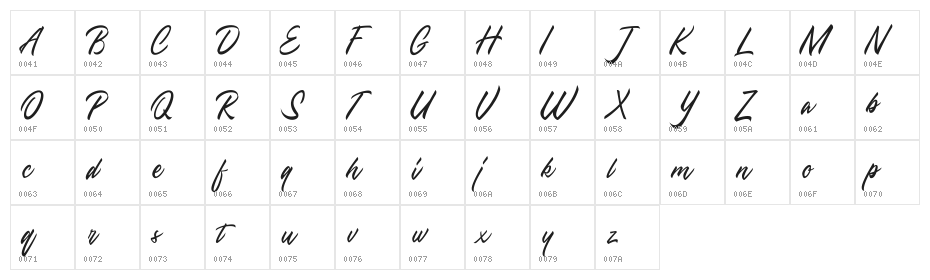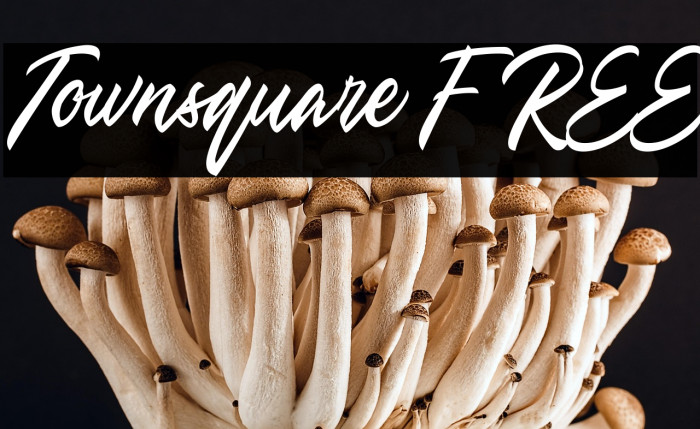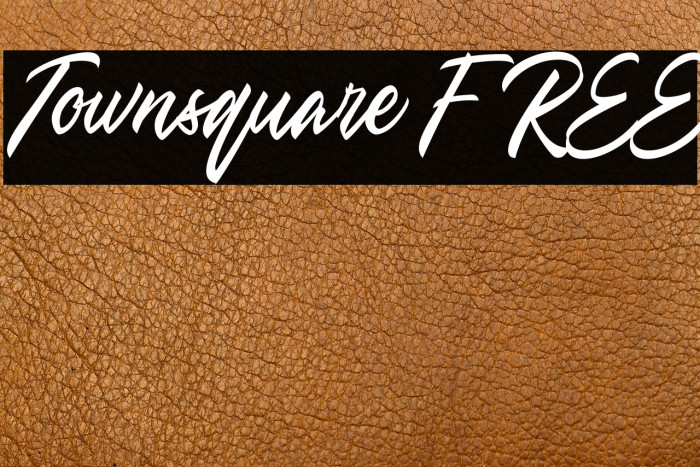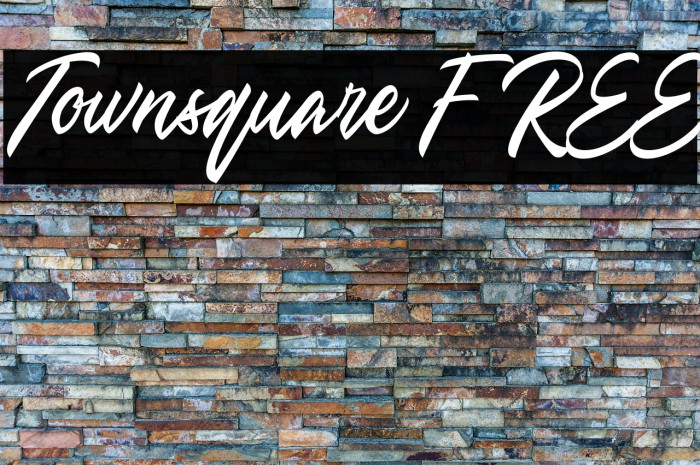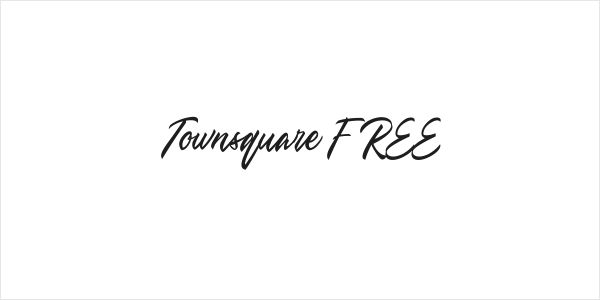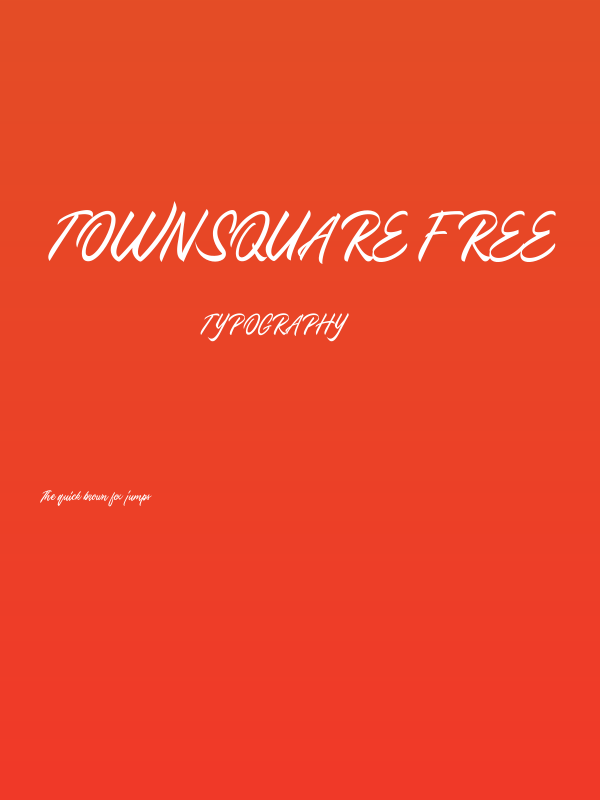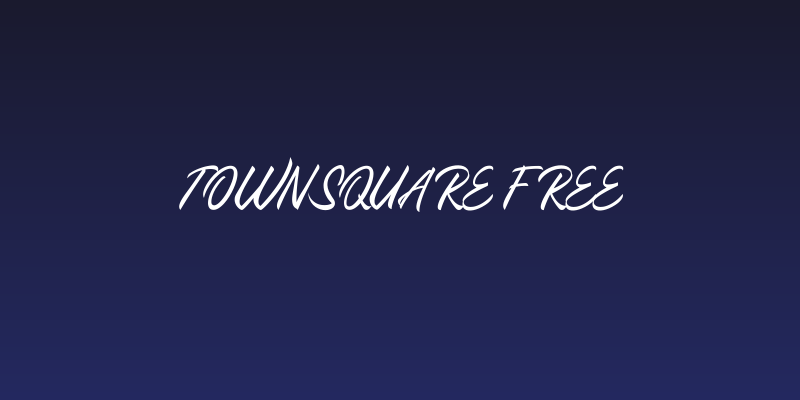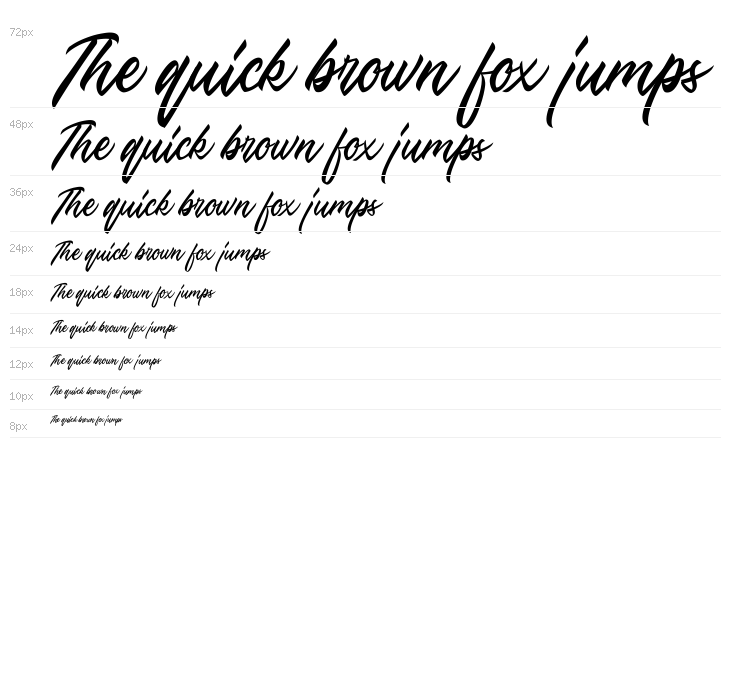
Townsquare FREE Font
Townsquare FREE Description
This font features a dynamic and fluid script style, characterized by its elegant and flowing letterforms. The strokes are smooth and connected, giving it a handwritten appearance that is both stylish and sophisticated. The uppercase and lowercase letters maintain a consistent slant, enhancing the cursive effect. The font's design is versatile, suitable for a range of creative applications. Its unique style is accentuated by the slight variations in stroke thickness, adding a touch of personality and flair. The special characters are seamlessly integrated, maintaining the overall aesthetic of the font.
| Proposed Projects | Ideal for wedding invitations, branding projects, greeting cards, and elegant logo designs. |